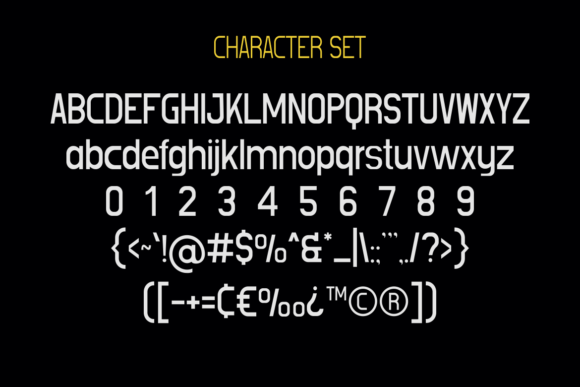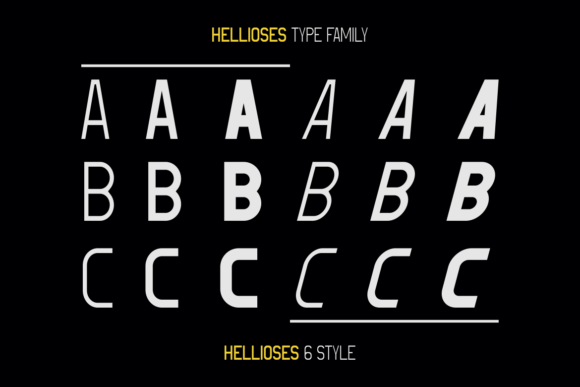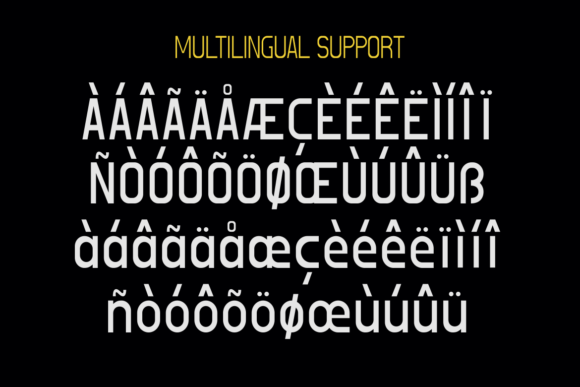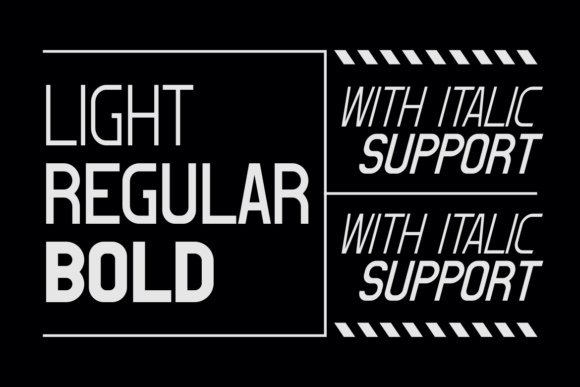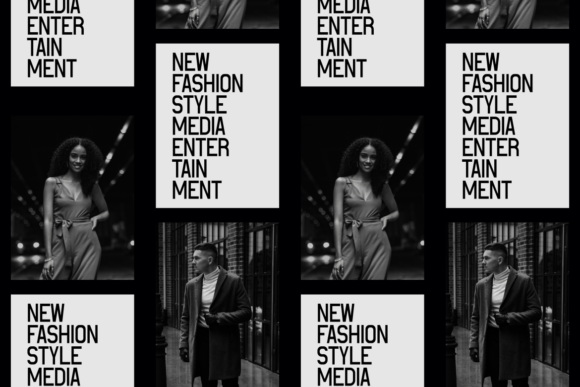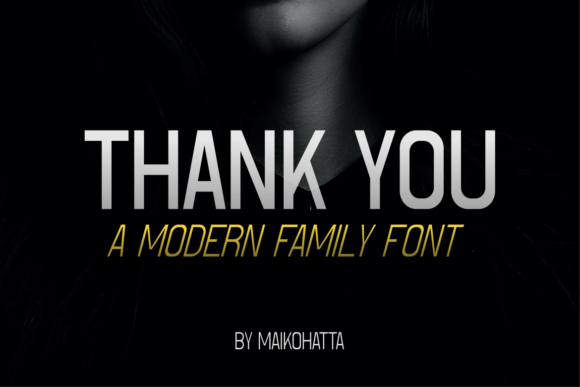
Introducing Hellioses: The Ultimate Modern Family Font
In the world of graphic design, typography plays a crucial role in conveying messages, evoking emotions, and creating visual identities. A well-crafted font can elevate a design project from ordinary to extraordinary. We’re thrilled to introduce Hellioses, a modern sans-serif font family that’s about to revolutionize the way you approach typography. With its versatility, flexibility, and sleek design, Hellioses is the perfect choice for designers, crafters, and anyone looking to create stunning text displays.
What is Hellioses?
Hellioses is a highly versatile sans-serif font family designed to cater to a wide range of graphic design needs. Available in various styles, this modern font family offers the flexibility to customize the appearance of text to suit your project’s requirements. Whether you’re working on a branding project, website design, or crafting a marketing campaign, Hellioses provides the perfect tools to create attractive and easy-to-read text displays.
Key Features of Hellioses
- Modern Sans-Serif Design: Hellioses boasts a sleek, contemporary design that’s perfect for creating clean and modern text displays.
- Variety of Styles: With multiple styles to choose from, you can mix and match to create unique typography that suits your project’s tone and personality.
- Highly Versatile: Hellioses is designed to work seamlessly across various design contexts, from digital screens to print materials.
- Easy to Read: The font’s clear and legible design ensures that your text is easy to read, even at smaller font sizes.
Hellioses offers numerous benefits for designers and crafters, including:
- Streamlined Workflow: With Hellioses’ versatility and range of styles, you can create a cohesive visual identity across multiple design projects, saving you time and effort.
- Enhanced Creativity: The font’s modern design and variety of styles give you the creative freedom to experiment with different typography combinations, pushing the boundaries of your design.
- Consistency Across Platforms: Hellioses ensures that your text displays look great across various digital platforms, from social media to websites, and print materials.
Use Cases for Hellioses
The possibilities are endless with Hellioses. Here are some use cases to get you started:
- Branding and Logo Design: Create a lasting impression with Hellioses’ modern and sleek design, perfect for logos, business cards, and letterheads.
- Website Design: Elevate your website’s typography with Hellioses, ensuring a clean and modern look that engages visitors.
- Marketing and Advertising: Use Hellioses to create eye-catching headlines, promotional materials, and social media graphics that grab attention.
- Crafting and DIY Projects: Add a touch of modern elegance to your crafting and DIY projects, such as papercrafting, scrapbooking, and journaling.
Hellioses is more than just a font family – it’s a design solution that offers flexibility, versatility, and creativity. With its modern sans-serif design, variety of styles, and ease of use, Hellioses is the perfect choice for designers, crafters, and anyone looking to elevate their typography game. Download Hellioses today and experience the power of exceptional typography in your design projects.